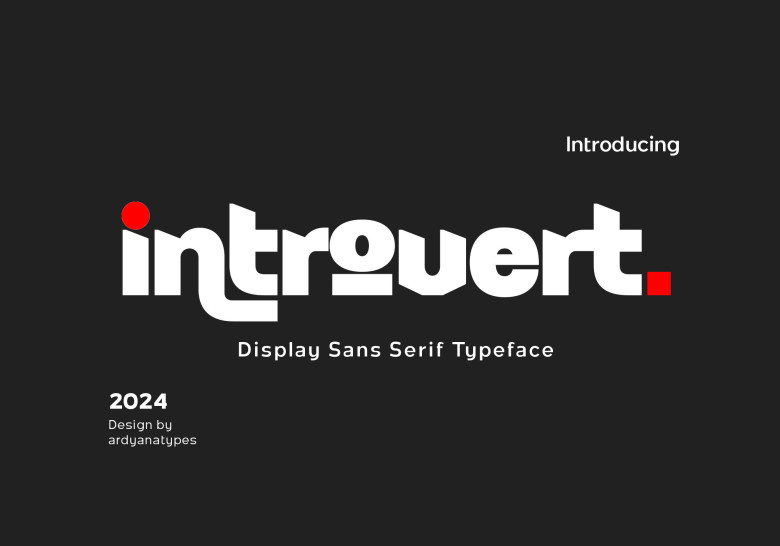
Introvert Font
Introvert by Ardyanatypes is an eye-catching sans serif font designed for projects that demand attention. With its clean lines and sharp corners, Introvert makes an impressionful first impression that will stand out in any design work you produce. But Introvert goes beyond appearances: its OpenType features provide you with numerous possibilities; from ligatures to alternate glyphs – Introvert offers limitless options to elevate designs to greater levels.
Introvert has been designed to accommodate multiple languages, making it the perfect solution for designers worldwide. Introvert can easily blend in to any environment, making it the go-to font when branding products, creating book covers or posters or designing catchy titles for cartoons and films – giving your designs that extra edge with its latest trends and energy!
Introvert Sans Serif Font